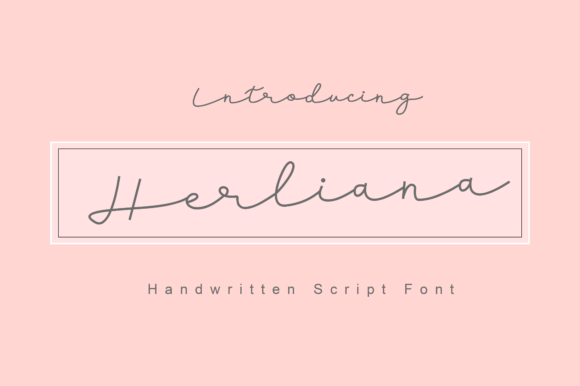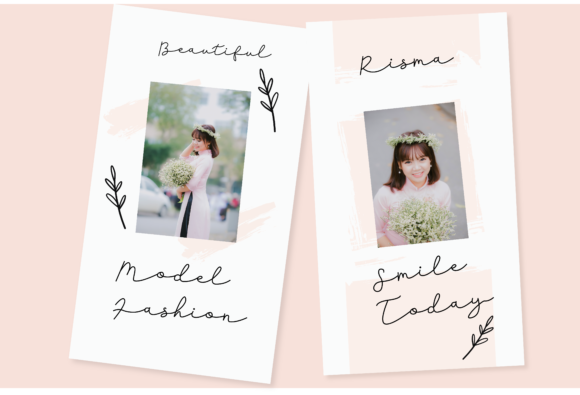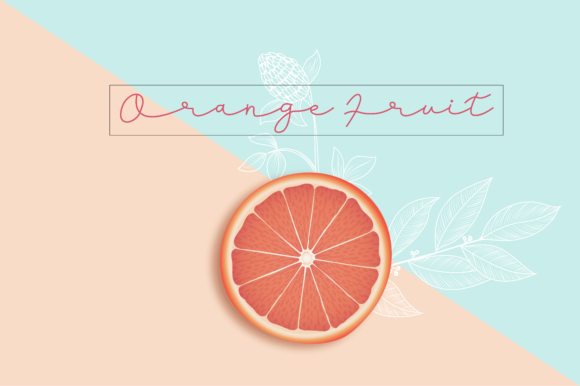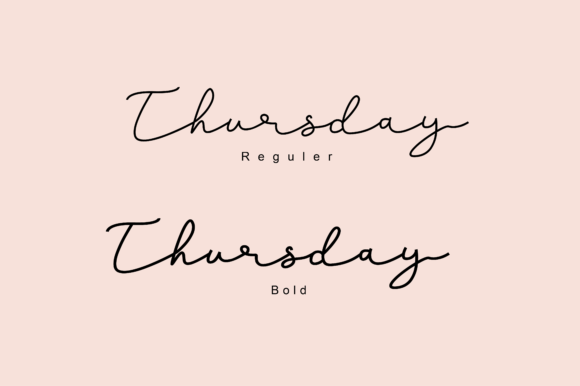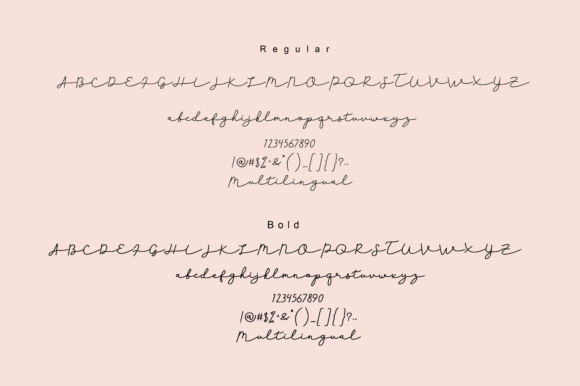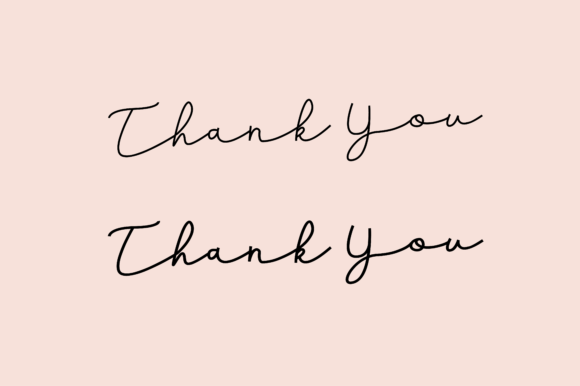
Herliana Font
About Herliana Font
Herliana features beautifully handcrafted strokes, that perfectly translate into a wide variety of design applications. Use it to add a romantic twist to any creative idea!